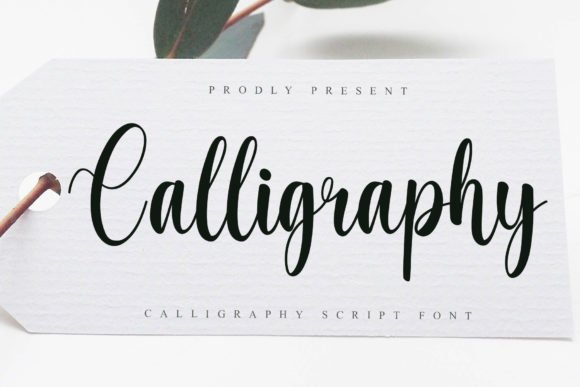
The Magic of Calligraphy Font: Bringing Life to Your Designs
Do you remember that moment when you finally nailed the perfect design for your brand’s new campaign? The feeling of excitement and satisfaction that comes with it is unmatched. And what makes it even more special is when you get to add that final touch that brings everything together – the perfect font. For many designers, that perfect font is the Calligraphy Font, with its delicate, elegant, and flowing handwritten style.
But what makes Calligraphy Font so valuable for designers? It’s the way it adds a touch of sophistication and elegance to any design, making it stand out from the crowd. With its beautiful and well-balanced characters, it’s the perfect choice for adding a personal touch to your work. Whether you’re creating a logo, a poster, or a website, Calligraphy Font is sure to make your design come alive.
Key Features of Calligraphy Font
- Unique characteristics include elegant connections between letters, subtle flourishes, and precise letterforms, giving it a sophisticated and artistic feel.
Calligraphy Font Review
Overall, I think the Calligraphy Font is a beautiful and elegant choice for any project. ✨ It’s perfect for creating a sense of sophistication and luxury, making it ideal for wedding invitations, announcements, and other high-end designs. ✨ The font’s flowing lines and connected letters give it a sense of movement and fluidity, which can add a lot of visual interest to a design.
However, there are a few limitations to consider. ⚠️ First, the font may be a bit too ornate for some projects, which could make it difficult to read. ⚠️ Additionally, the font’s complexity may make it challenging to use in certain contexts, such as on small screens or in tight spaces. ⚠️ Finally, some users may find the font’s style to be a bit too “over-the-top” or clichéd, which could detract from its overall effectiveness.
Pros and Cons:
- ✨ Beautiful, elegant design
- ✨ Perfect for high-end projects
- ✨ Adds visual interest to designs
- ⚠️ May be too ornate for some projects
- ⚠️ Challenging to use in certain contexts
- ⚠️ Style may be too “over-the-top” for some users
Overall, I would recommend the Calligraphy Font for projects where you want to make a statement and add a touch of luxury. However, it may not be the best choice for every project, and users should carefully consider the font’s limitations before using it.